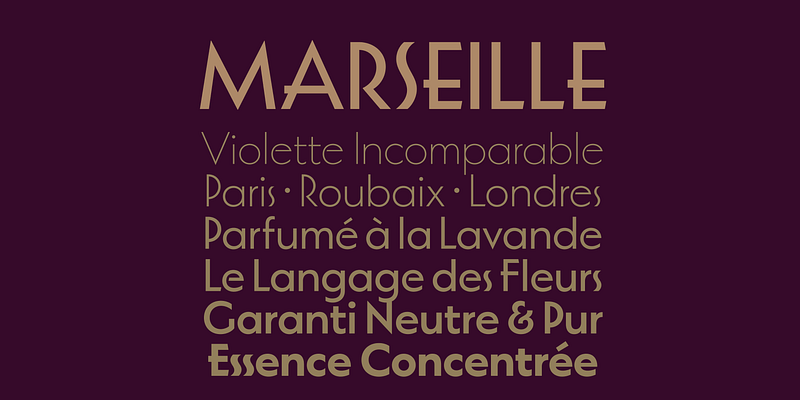
An Art Deco-inspired typeface based on Louise Fili’s iconic cover design for The Lover, Marseille is available in six irresistible weights. The adjustable crossbar heights and overshoots, along with a combination of OpenType features, allow Marseille to take on a variety of expressions while remaining timelessly elegant.